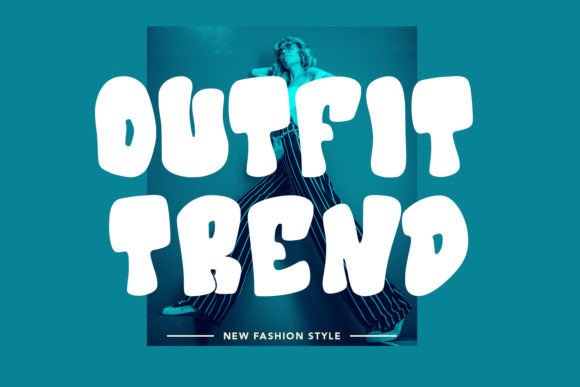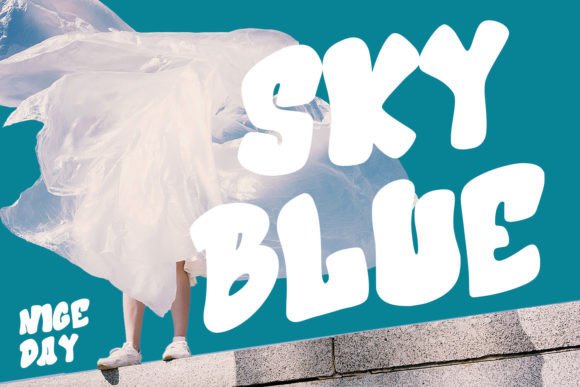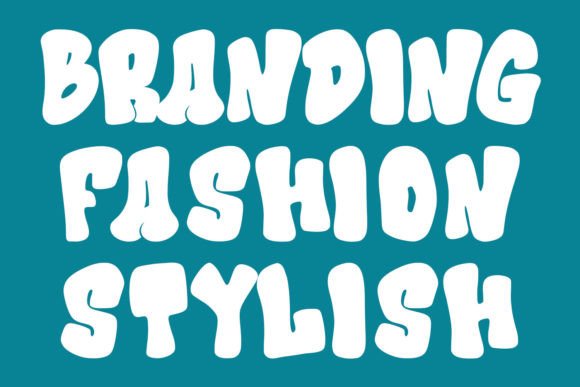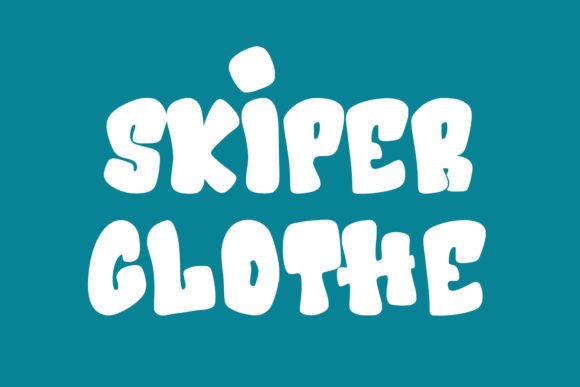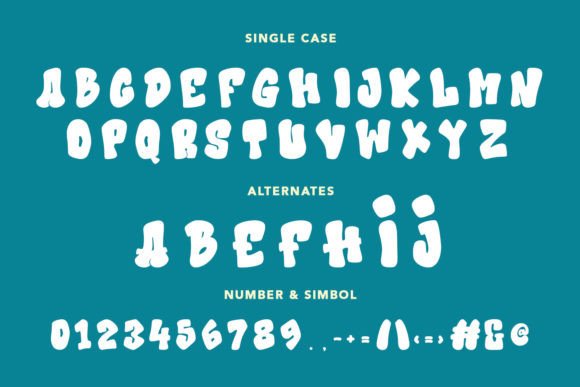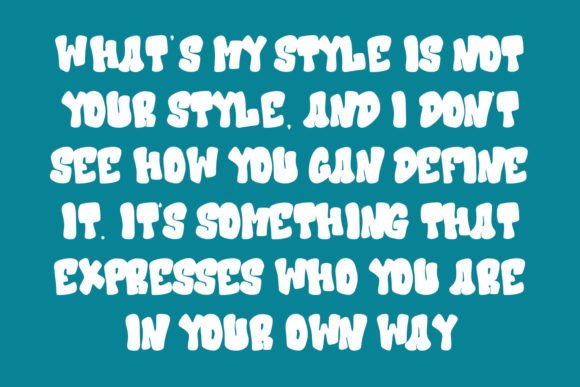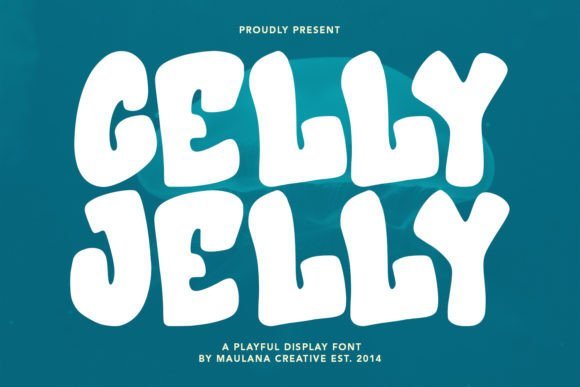
Unleashing Your Inner Creativity with Celly Jelly Font
Have you ever found yourself stuck in a design rut, searching for that perfect font to bring your creative vision to life? It’s a feeling we’ve all been there, staring at a blank canvas, willing the perfect font to magically appear. For designers, finding the right font can be a game-changer, and that’s where the Celly Jelly Font comes in – a playful display font designed to add a touch of whimsy and personality to your work.
With its bold stroke, fun character, and clever use of ligatures and alternates, the Celly Jelly Font is the perfect tool for designers looking to add some extra creative flair to their projects. Supporting over 100 languages, this versatile font is perfect for logo design, social media, movie titles, book titles, and even short or long text letters. Whether you’re working on a standalone project or need a secondary text font to complement your script or serif font, the Celly Jelly Font is sure to impress.
Celly Jelly Font Key Features
- Font Family: Celly Jelly Font is a unique and playful font family, ideal for creating eye-catching designs and headlines.
- Character Count: The font family includes a wide range of characters, including uppercase and lowercase letters, numbers, and punctuation marks.
- Unique Characteristics: Celly Jelly Font features a distinctive, jelly-like design with rounded edges and irregular shapes, adding a touch of whimsy to any design.
Celly Jelly Font Review
First off, I have to say that the Celly Jelly Font is a true original. The whimsical design and playful feel make it perfect for adding a touch of fun to any project. ✨ The font’s bold lines and rounded edges give it a unique, hand-drawn look that’s hard to resist.
- The font’s flexibility: Celly Jelly works well for both digital and print projects.
- The wide range of weights and styles: from bold to light, and from casual to formal.
- The creative possibilities: Celly Jelly can be used for logos, branding, packaging, and more.
Now, I’m not going to sugarcoat it – Celly Jelly has some limitations. ⚠️ For one, the font may not be the best choice for text-heavy projects, as the irregular letterforms can make reading difficult. Additionally, the font’s quirky design may not be to everyone’s taste.
I’d say the Celly Jelly Font is a great choice for designers who want to add some personality to their projects. It’s perfect for branding, marketing materials, and other visual communications where a playful touch is needed. Just be mindful of its limitations, and use it wisely.
The Celly Jelly Font is ideal for:
- Children’s books and educational materials.
- Playful and creative marketing campaigns.
To get the most out of the Celly Jelly Font, consider the following tips:
- Use it in combination with bright and playful colors.
- Experiment with different font sizes and styles